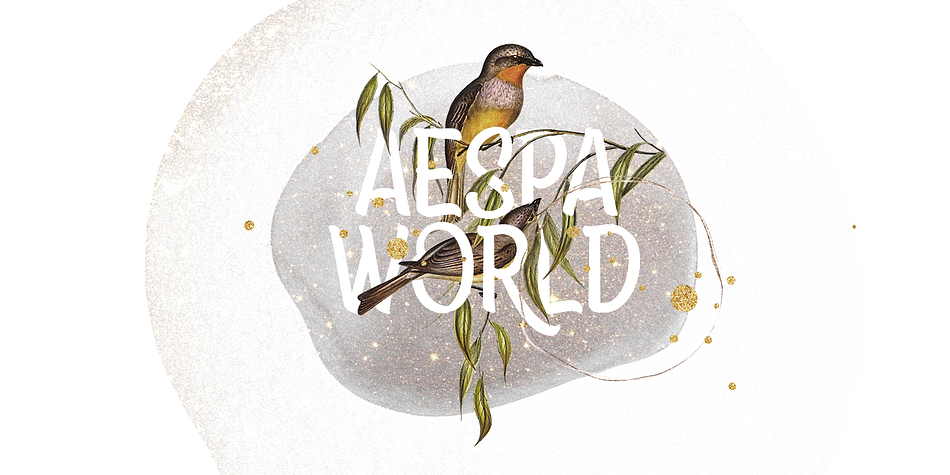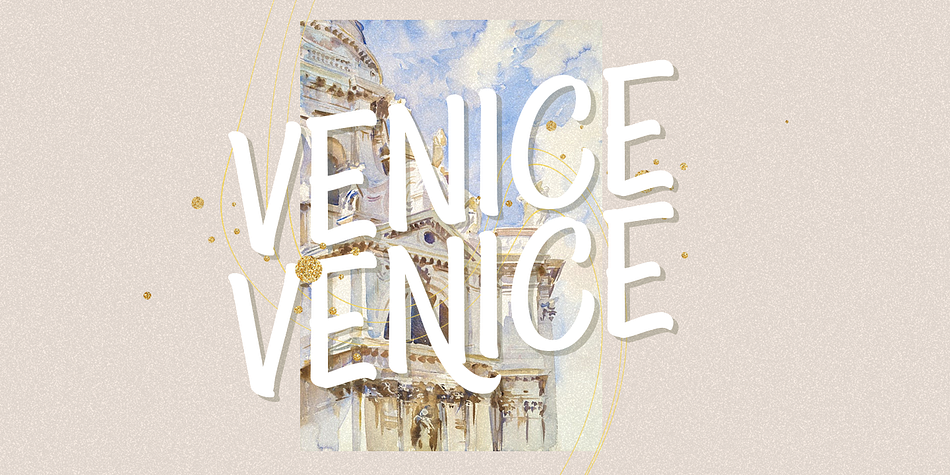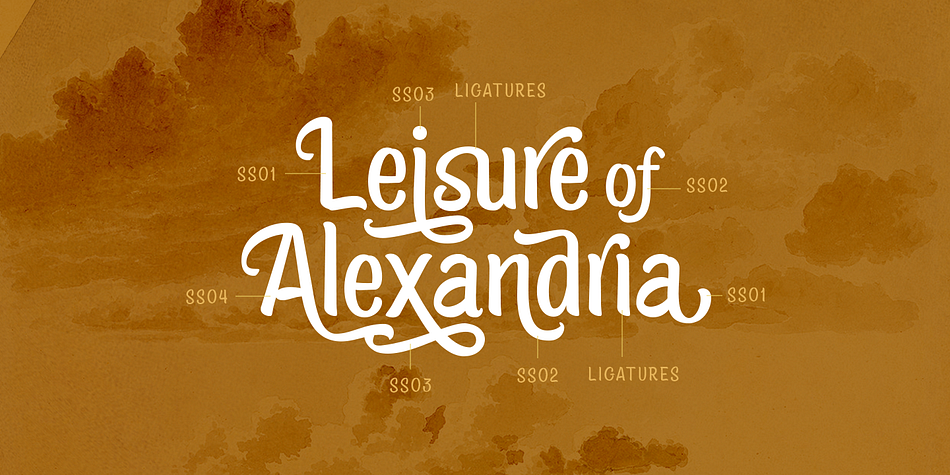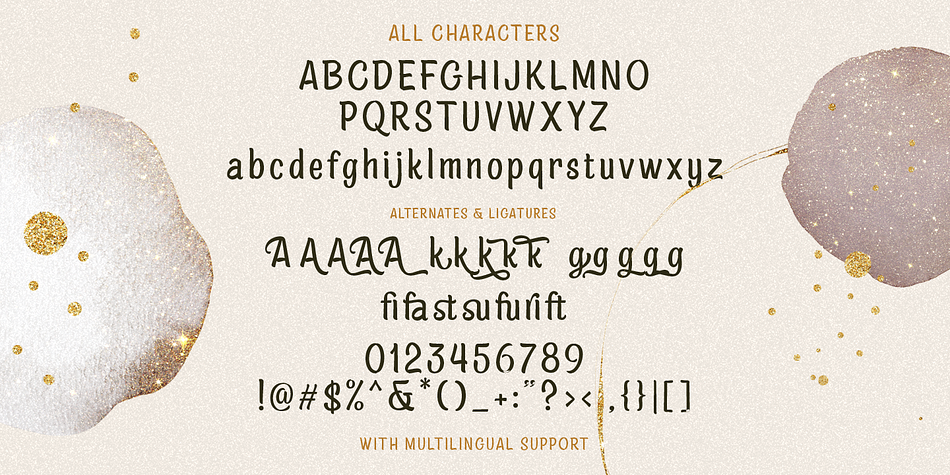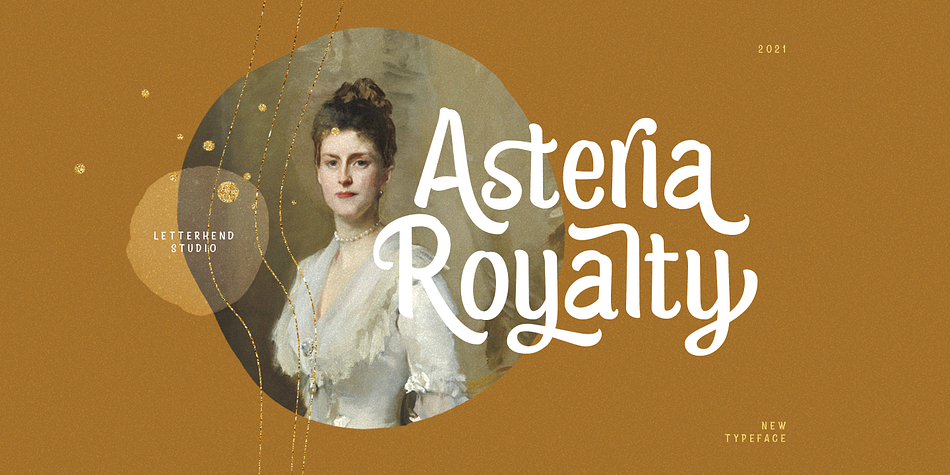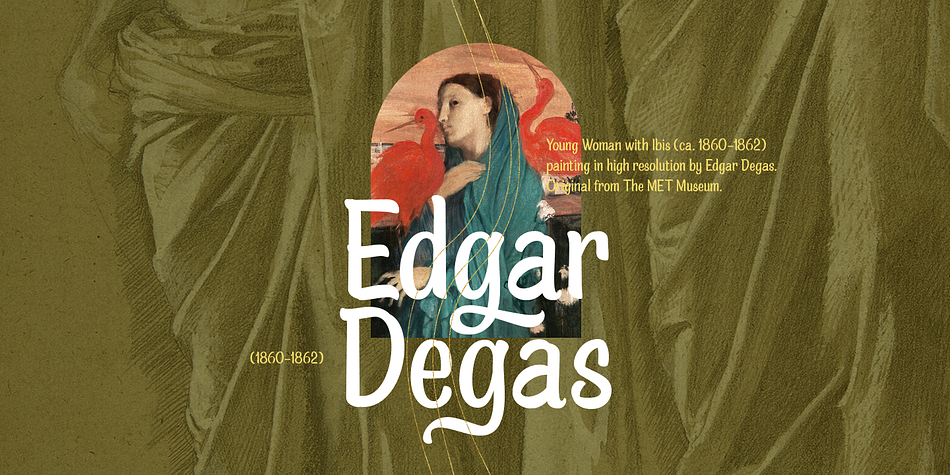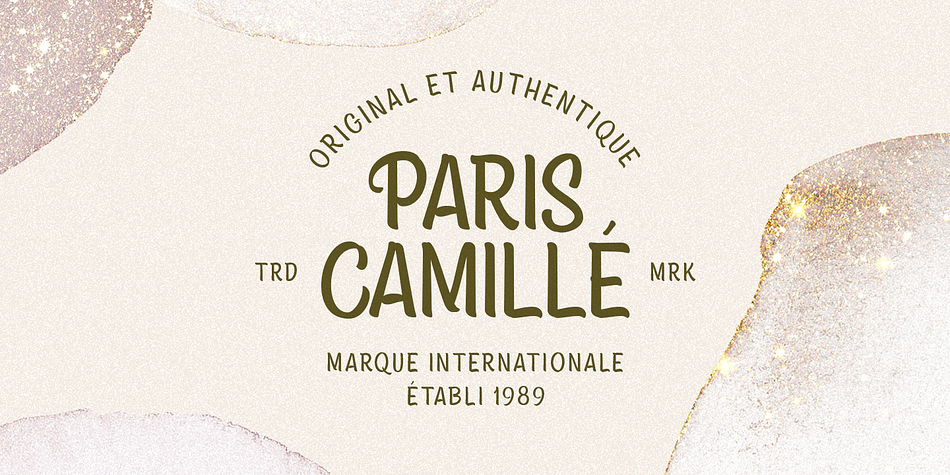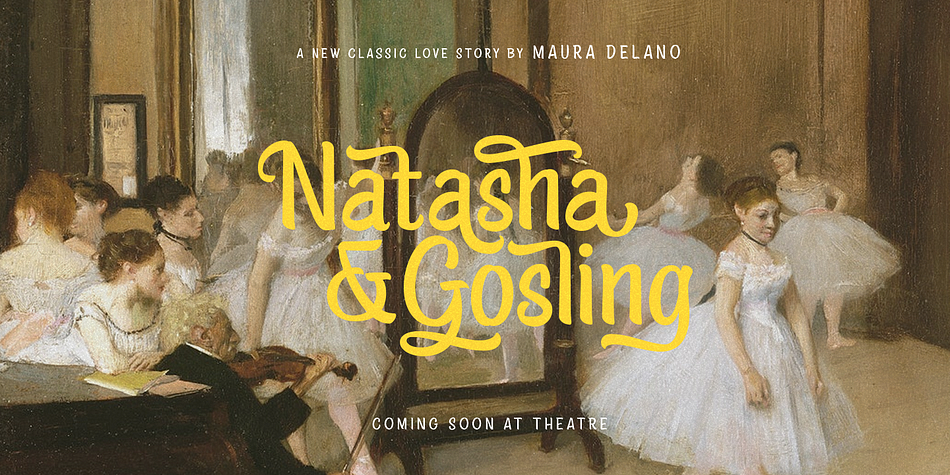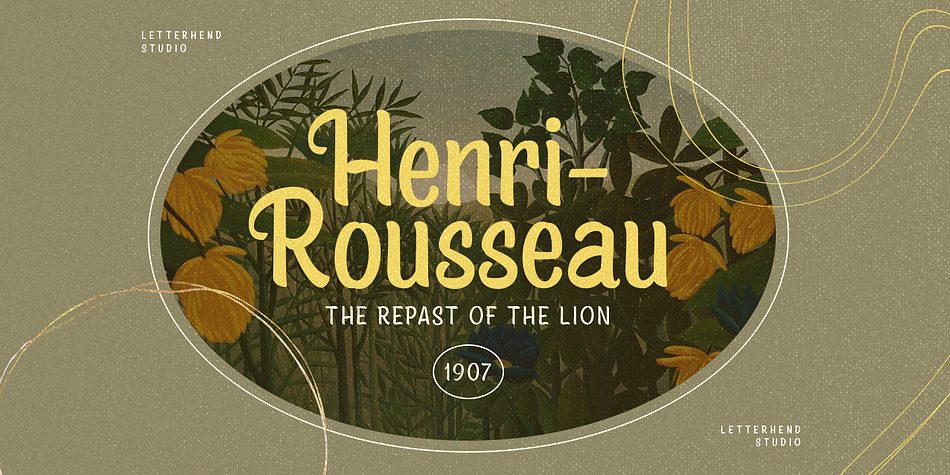
Designed by Hendry Juanda, Asteria Royalty is a brush script and script font published by Letterhend Studio.
Introducing, Asteria Royalty - A font made by natural handwriting. Perfectly to be applied to the other various formal forms such as invitations, labels, logos, magazines, books, greeting / wedding cards, packaging, fashion, make up, stationery, novels, labels or any type of advertising purpose.
- alternates, swash & ligatures